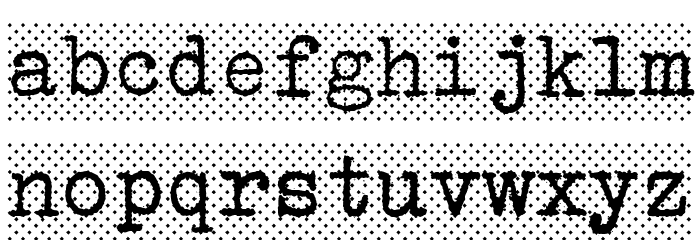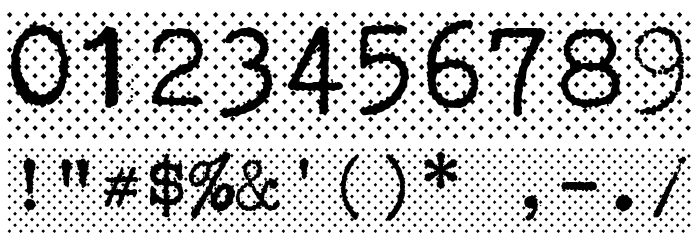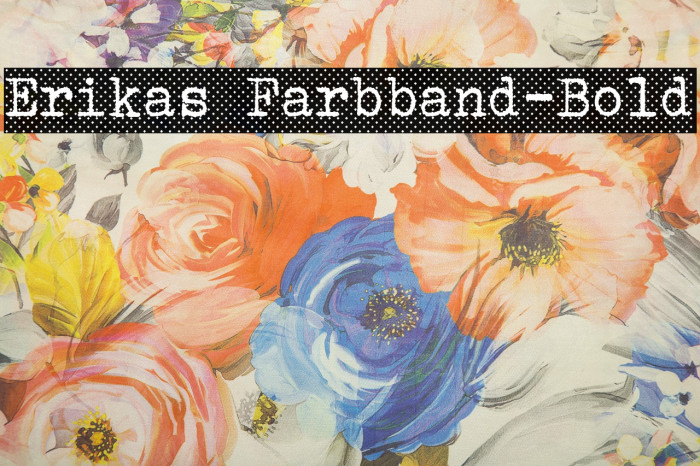
Erikas Farbband-Bold Font
This font features a bold, textured appearance reminiscent of vintage typewriter styles. Each character is defined by a distinct dotted pattern, creating a unique visual texture that adds depth and character. The uppercase and lowercase letters maintain a consistent style, with slightly rounded edges and a robust presence. Numbers and special characters follow the same design, ensuring uniformity across all glyphs. The overall aesthetic is both retro and industrial, making it suitable for projects that require a touch of nostalgia or a handcrafted feel.
A bold, textured font with a vintage typewriter aesthetic.
- Font: Erikas Farbband-Bold
- Proposed Projects: Ideal for retro-themed designs, posters, branding, and any project requiring a vintage or industrial feel.
- Overall Style: Vintage